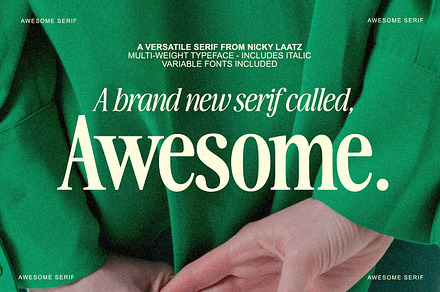
The Awesome Serif Family (32 Fonts)
A serif family running to 32 fonts, covering an extensive range of weights and widths with matching italics throughout.
At this size the family becomes a complete typographic system, capable of handling every hierarchy level in a publication without external support.
- Full weight and width range with italics
- Consistent metrics throughout
Made for
- Publication and editorial systems
- Complete brand typography
- Book and long-form design
- Web and print consistency